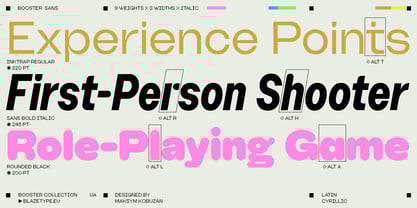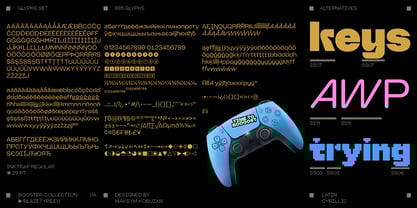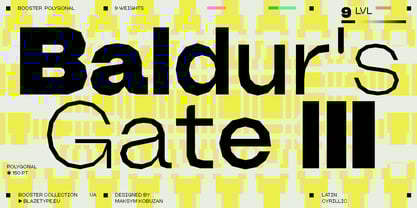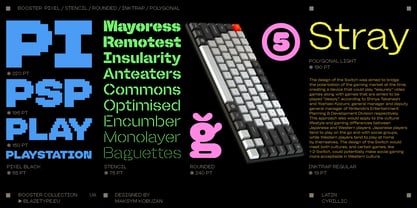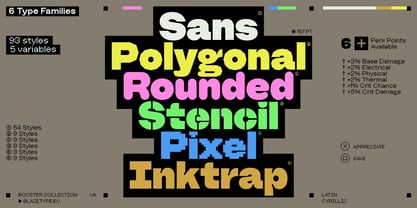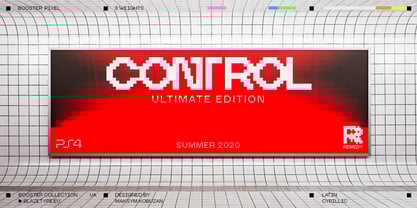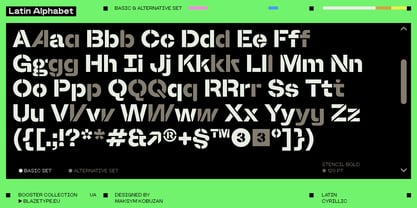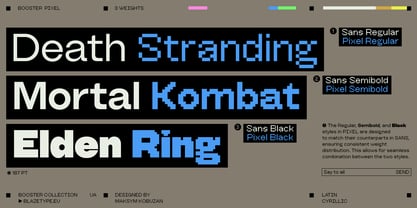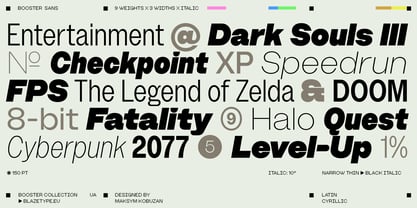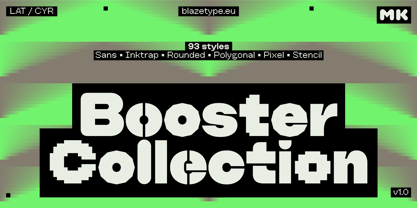
The Booster Variable Font Family was designed by Maksym Kobuzan and published by Blaze Type. Booster Variable contains 5 styles and family package options. More about this family
Booster Collection is a game-changing superfamily designed to elevate the visual experience for creative professionals. It is built to act as a true power-up, enhancing workflow efficiency and empowering designers to take their visual style to the next level.
Drawing inspiration from the classic Modern Gothic of the late 19th century by Barnhart Brothers & Spindler, this expansive collection reinterprets a wide, massive geometric grotesque with a contemporary twist. With 93 fonts spread across 6 diverse subfamilies — Sans, Rounded, Pixel, Polygonal, Stencil, and Inktrap — Booster Collection offers a rich toolbox that adapts seamlessly to a variety of design challenges. Each of these subfamilies acts as a unique “buff,” enhancing different aspects of a design’s personality and function.
At its core, Booster Collection features clean, precise forms enhanced by subtle rounded details — such as softened character tails and capsule-like accents on additional symbols and diacritics — that inject a playful energy into its bold structure. Supporting both extended Latin and Cyrillic scripts, along with a wealth of alternative glyphs, the collection provides endless possibilities for creative expression, ensuring that every project benefits from its unique boost in visual impact.